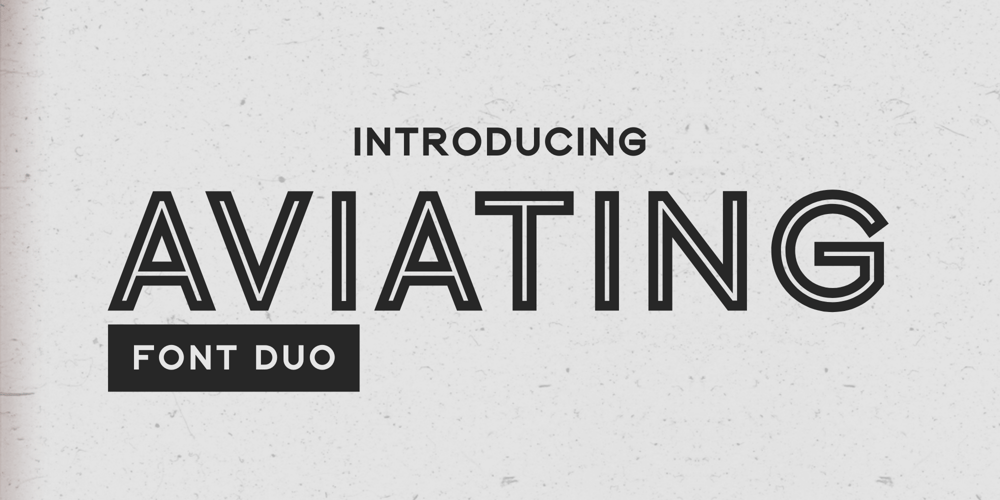
Aviating
Aviating font
Aviating Font Family was designed by Candi Erwanto and published by Objectype. Aviating contains 2 styles and family package options. Aviating Font Duo is a modern typeface that offers two different styles: inline and without inline. This font is also supported with multilingual features, making it easy to use in various international contexts.Aviating Font Duo is highly versatile and suitable for both large and small sizes. With its modern and elegant appearance, this font is the perfect choice for branding projects, home appliance designs, product packaging, magazine titles, or even as an attractive text element to be added on top of background images.In Aviating Font Duo, you will find complete sets of uppercase letters, numbers, punctuation marks, and symbols. The font is available in two variants: Regular and inline, providing more flexibility in its usage.Additionally, this font also supports multiple languages, ensuring that you can apply it in different language contexts.If you have any further questions or need assistance, please feel free to contact me. I am ready to help you.Please note that the mock-up presentations and backgrounds used in the images are not included in the font package.Thank you for your interest! I hope you enjoy using Aviating Font Duo!